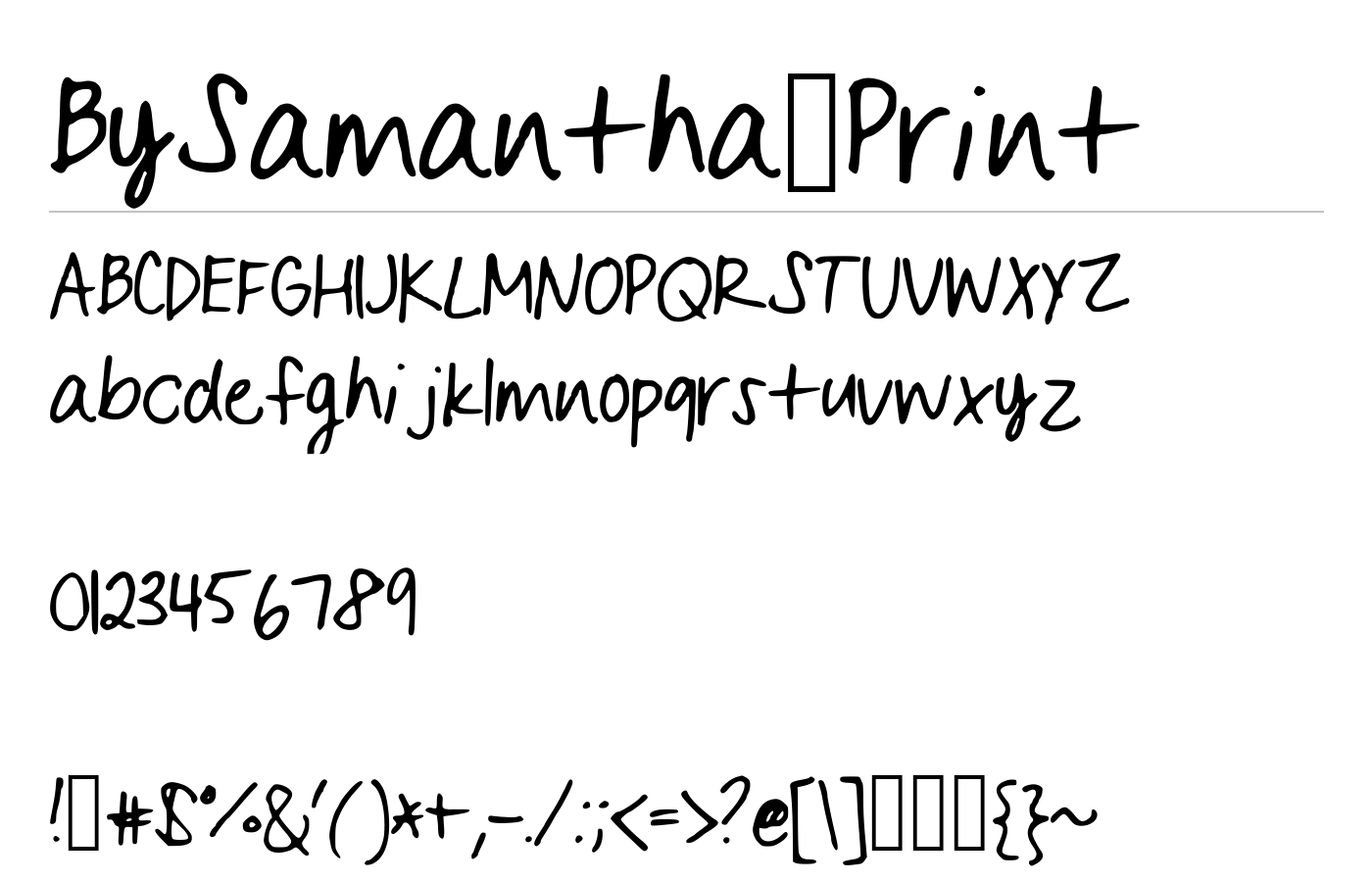
BySamantha_Print is a playful and casual handwritten font with a friendly, informal feel. Its light weight, natural irregular strokes, and moderately tall x-height make it perfect for personal projects, creative branding, and any design that wants a warm, approachable touch. This font works well for invitations, social media graphics, and headlines where a fun, authentic vibe is desired.
BySamantha_Print Font
About BySamantha_Print Font